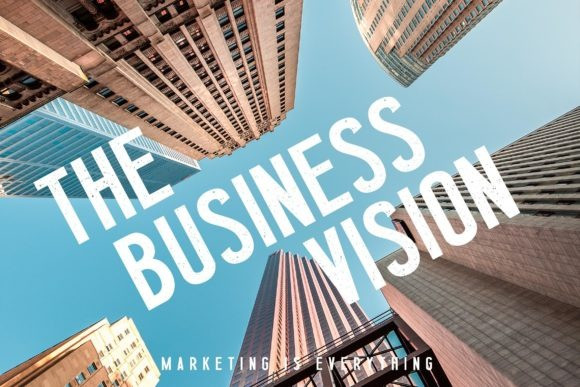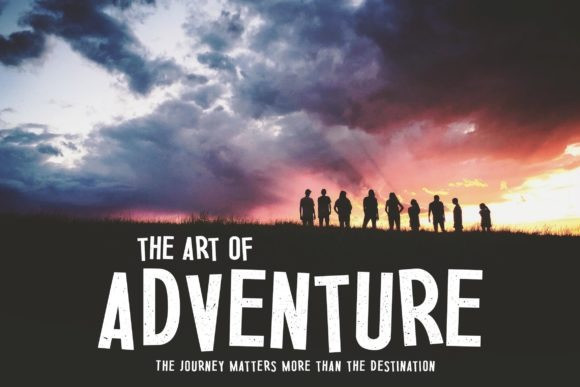
Los Angeles Press Font
Los Angeles Press is a cool, vintage styled and bold display font. Simple lettered, this font will make each of your designs instantly stand out. Use this font for your designs and explore its endless possibilities.